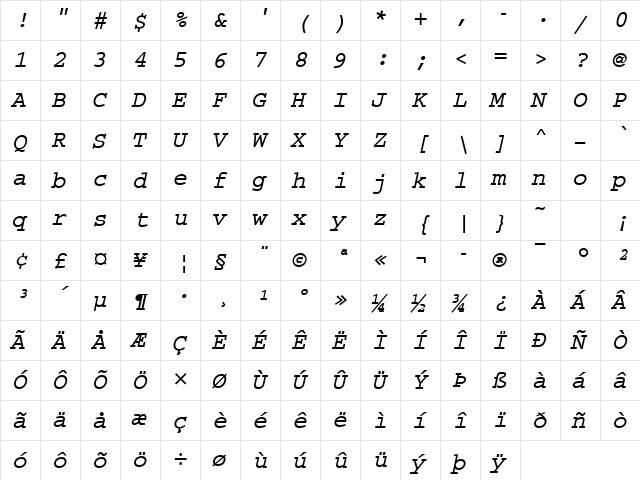
CourierM Bold Oblique Font Preview
Design Context for CourierM Typeface
CourierM brings the precise, column-aligned rhythm of monospaced typography to designs that value technical clarity and systematic order. The dynamic lean of this cut emphasises speed and emphasis in any layout. The heavy weight commands attention and anchors typographic hierarchies.
A natural fit for code editors, technical documentation, developer-focused branding, and terminal-inspired UI.
Pro Tip: Pair CourierM with a proportional sans for UI contexts where code-style labels and regular body copy need to coexist.